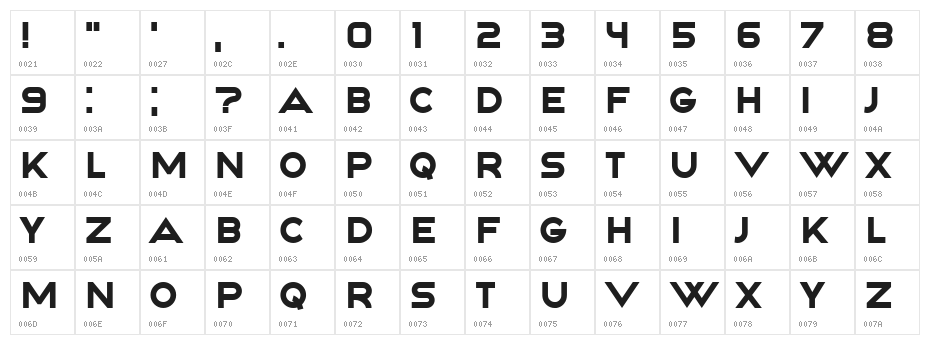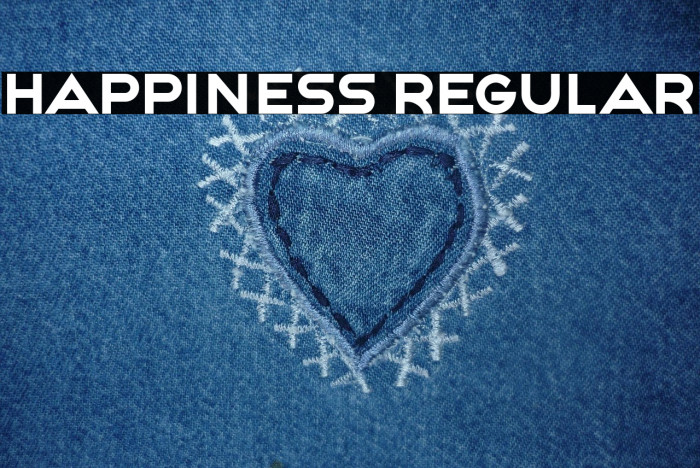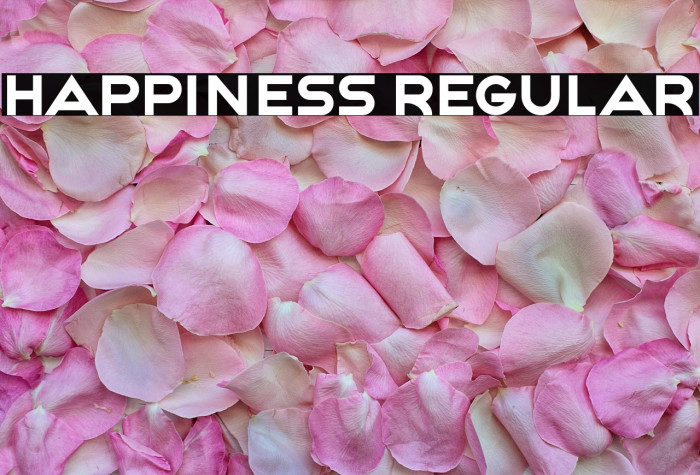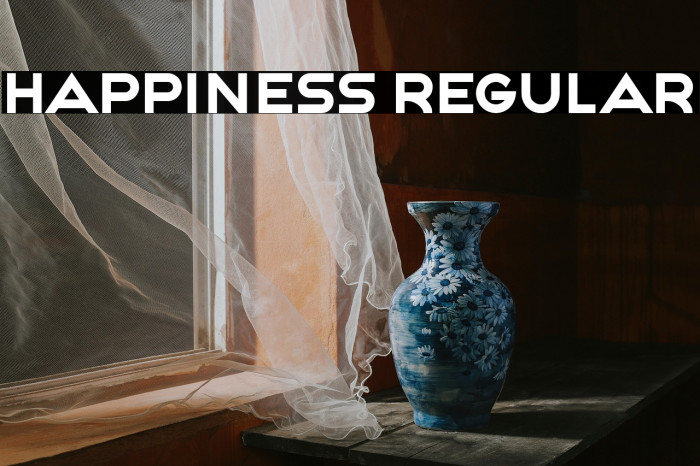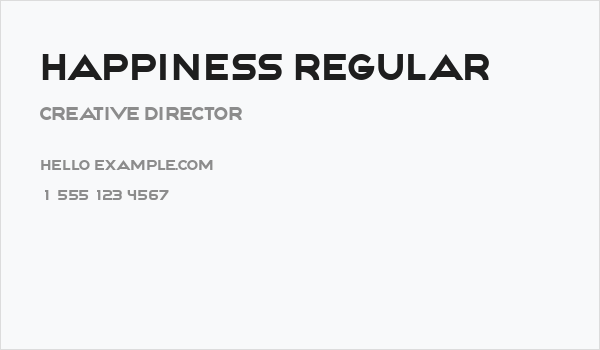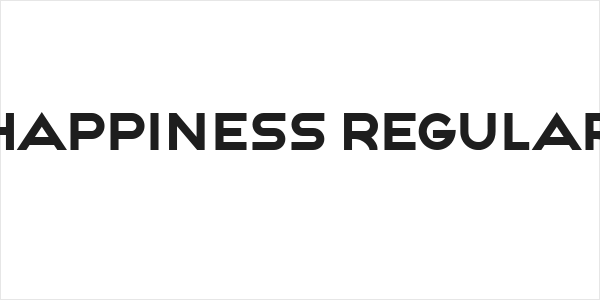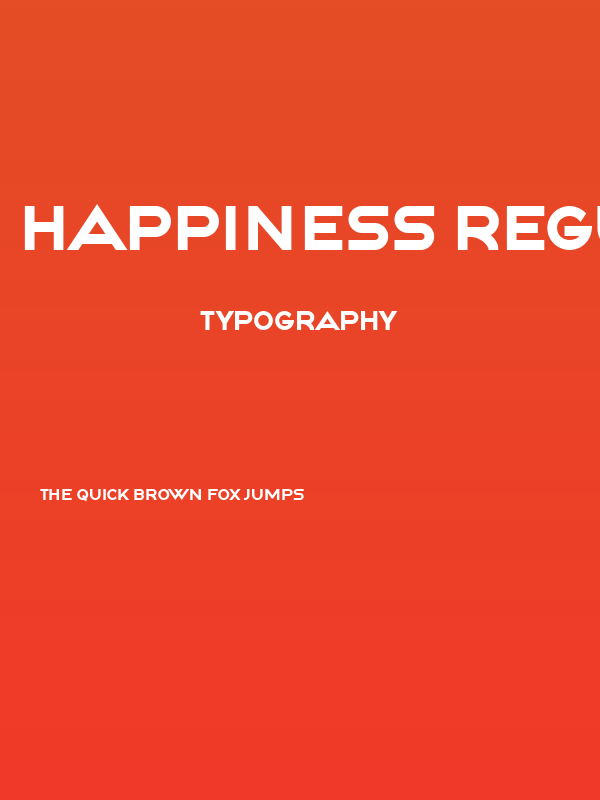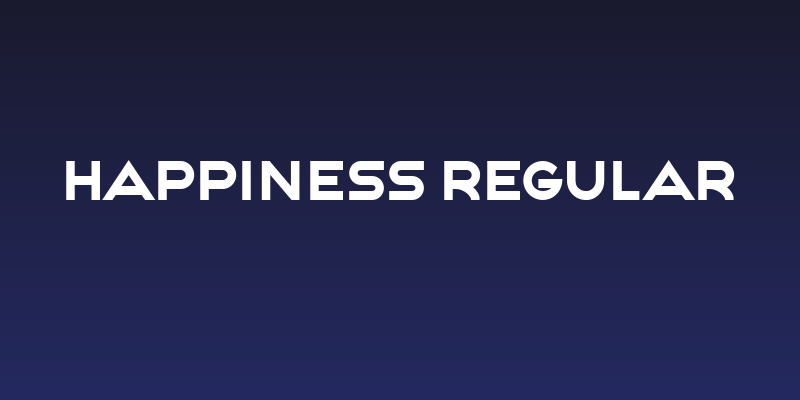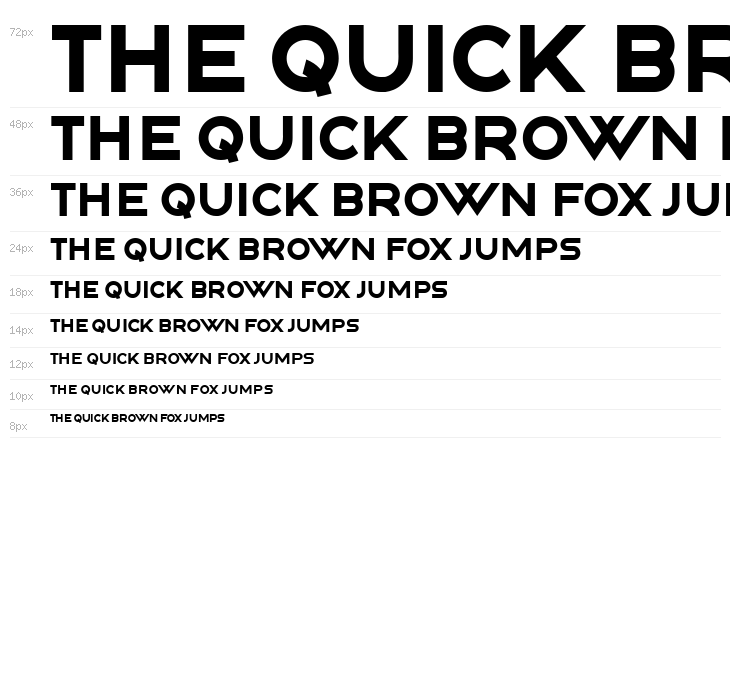
Happiness Regular Font
Happiness Regular Description
This font features a bold and geometric design with clean lines and a modern aesthetic. The characters are uniformly structured, providing a sense of stability and strength. The uppercase letters are particularly striking, with sharp angles and a consistent width that conveys a sense of precision. The numerals are equally robust, maintaining the geometric theme with rounded edges that add a touch of softness to the overall look. The special characters are designed to match the boldness of the alphabet, ensuring a cohesive appearance across all text elements.
| Proposed Projects | Ideal for branding projects, headlines, posters, and digital interfaces where a strong, modern presence is desired. |